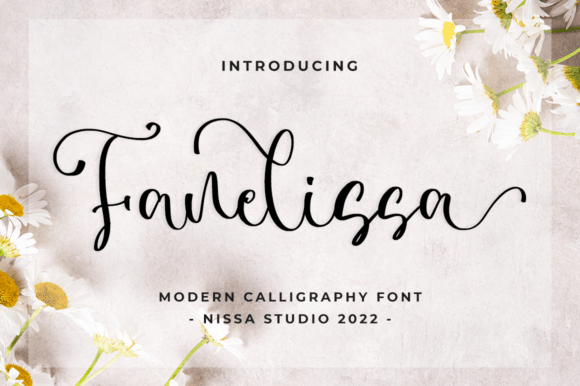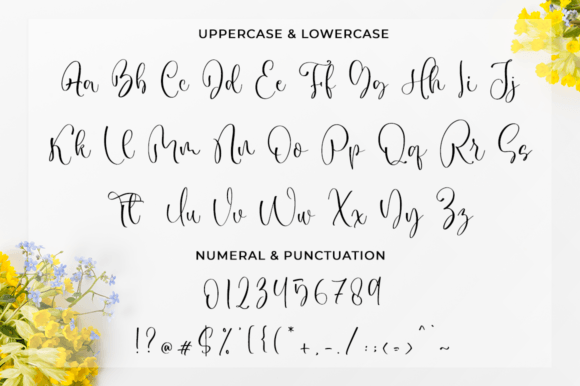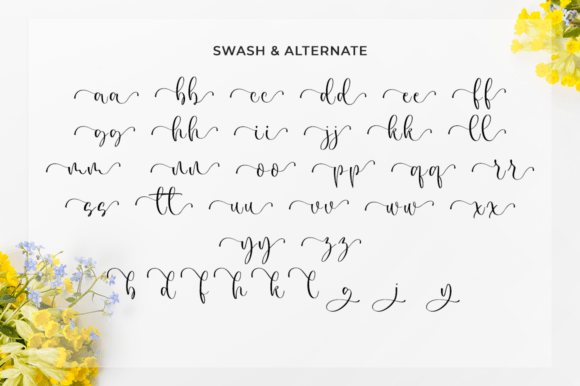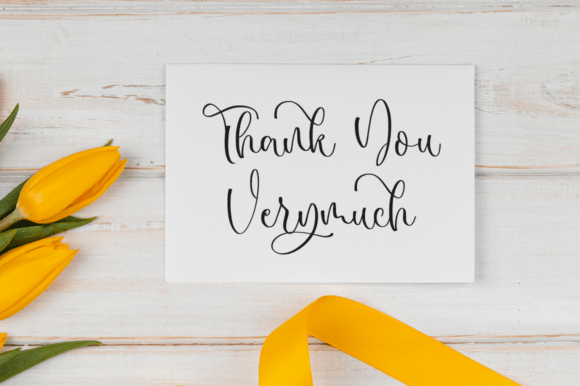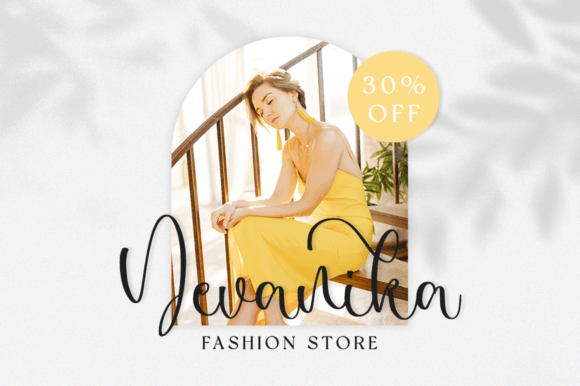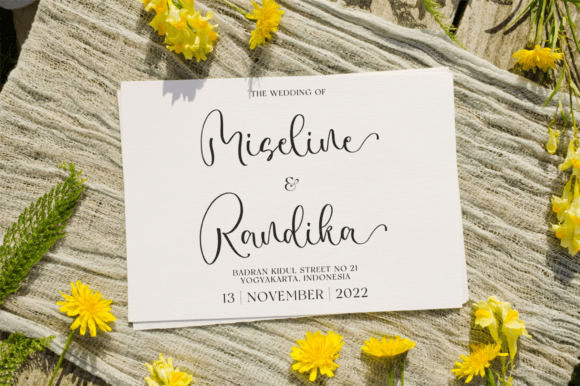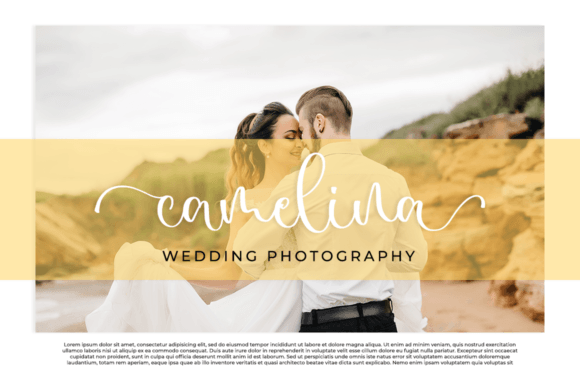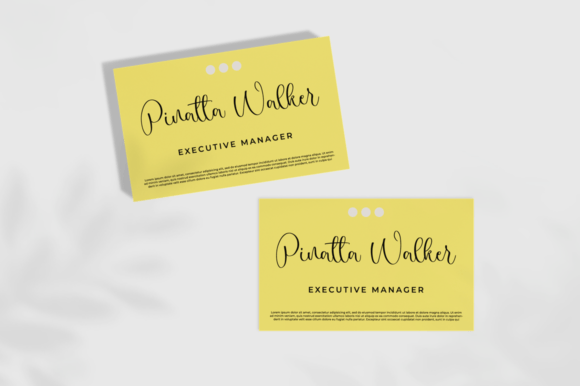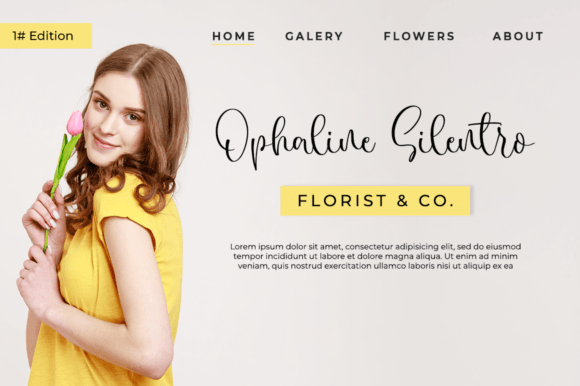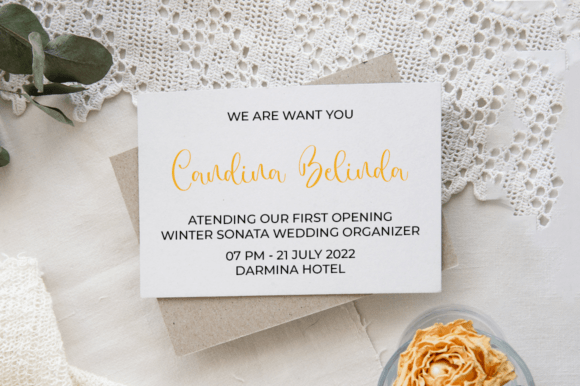
Fanelissa Font
About Fanelissa Font
“Fanelissa” is more than just a font; it’s a beautiful and delicate script designed to bring a unique and stunning impact to your design projects. With a touch of luxury, “Fanelissa” is a versatile typeface that adds a spark of elegance to various creative endeavors.
The delicate and handwritten style of “Fanelissa” makes it a perfect choice for projects that require a personalized and refined touch. Whether you’re working on invitations, branding, packaging, or any design that needs a luxurious feel, “Fanelissa” delivers with grace and sophistication.
What sets “Fanelissa” apart is not just its visual appeal but also the thoughtful inclusion of OpenType features. The font is PUA encoded, allowing easy access to a wealth of amazing glyphs and ligatures. This feature enhances the versatility of the font, giving you the freedom to customize your designs with unique and eye-catching elements.
For projects that demand a touch of romance, such as wedding invitations or special event announcements, “Fanelissa” shines. Its unique feel and stunning impact make it an ideal choice for creating visually striking and memorable pieces.
The script’s versatility extends to various design applications. Whether you’re working on social media graphics, product packaging, or creating eye-catching headlines, “Fanelissa” brings a level of sophistication that elevates your design to new heights.
The luxury spark that “Fanelissa” adds to your projects isn’t just about aesthetics; it’s about creating a visual experience. The font goes beyond being a tool; it becomes a key element in conveying the essence of your brand or message.
Incorporating “Fanelissa” into your font library is not just a choice; it’s a statement. It’s a commitment to infusing your designs with elegance, uniqueness, and a touch of luxury. With its beautiful curves and stunning impact, “Fanelissa” transforms your creative vision into a masterpiece.